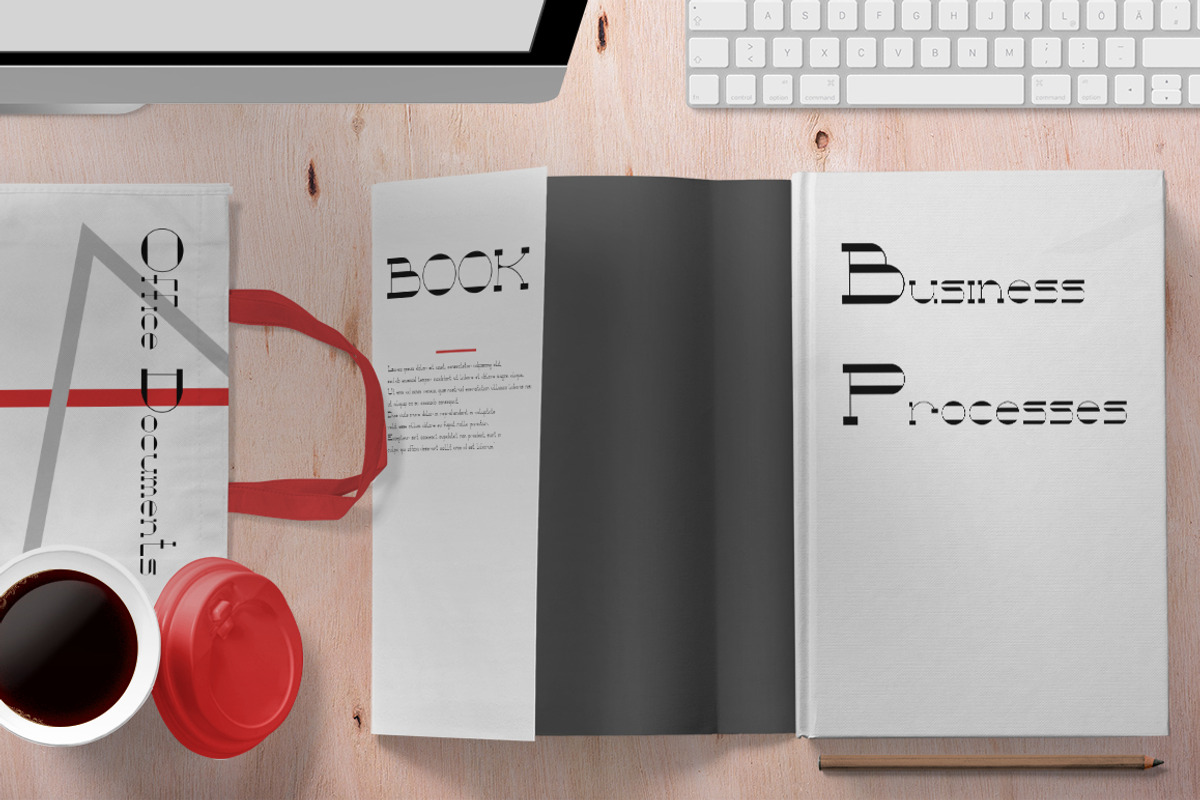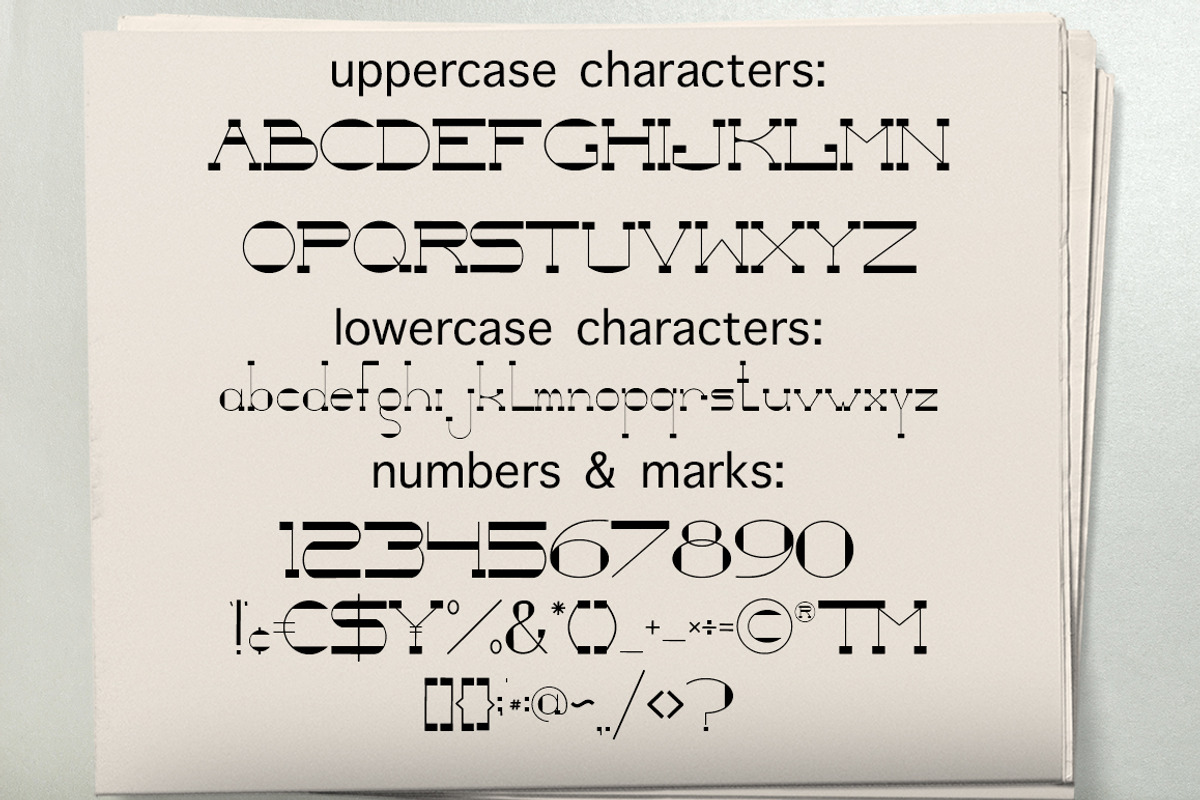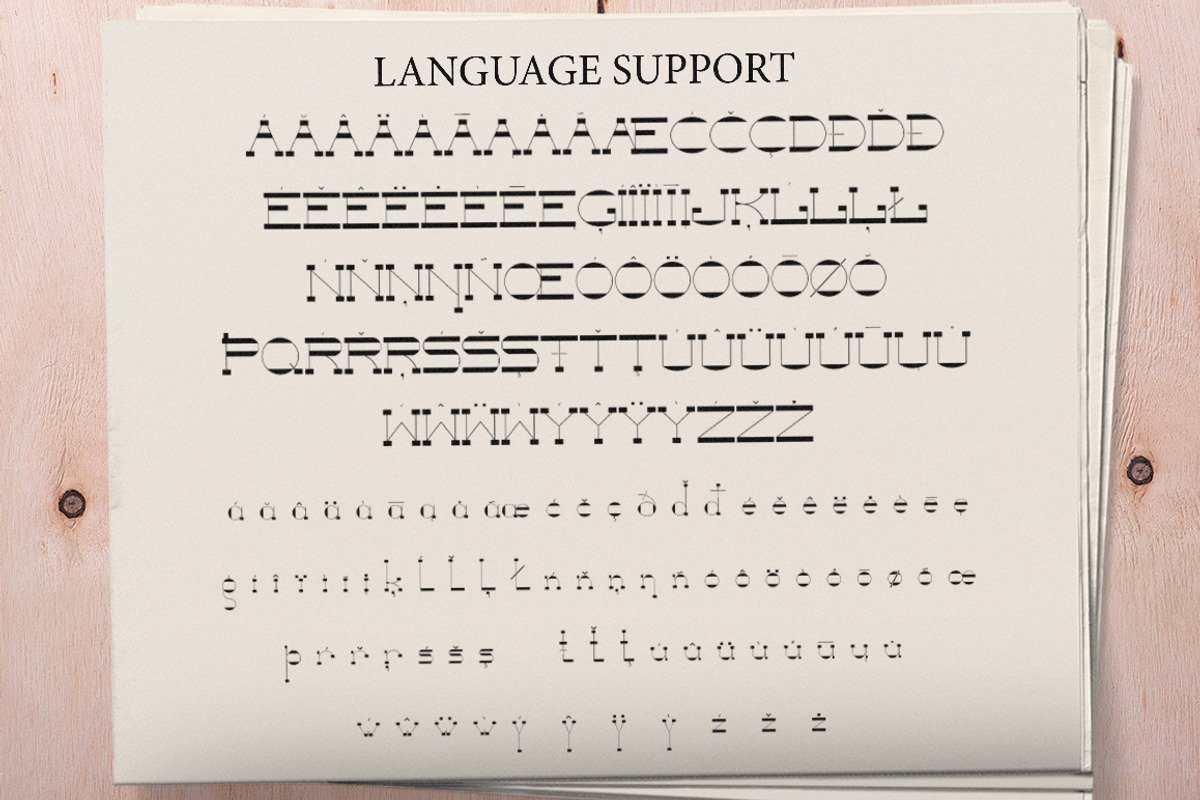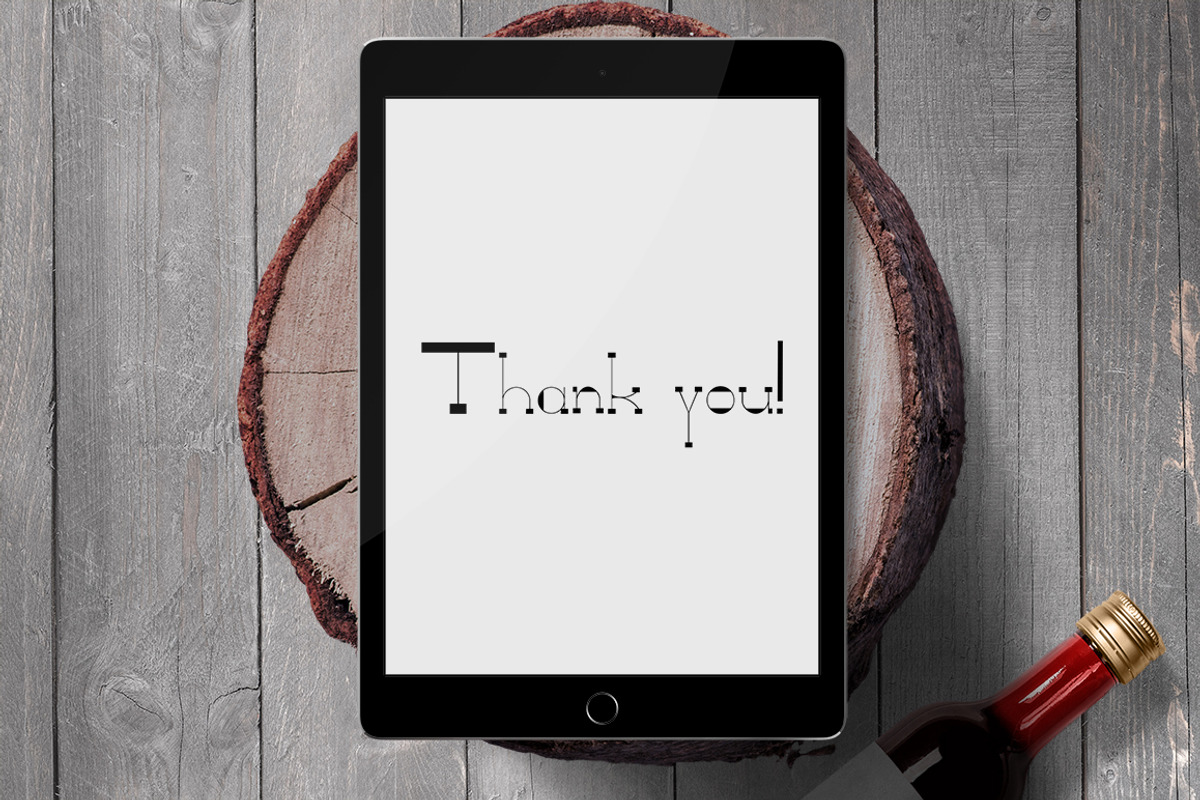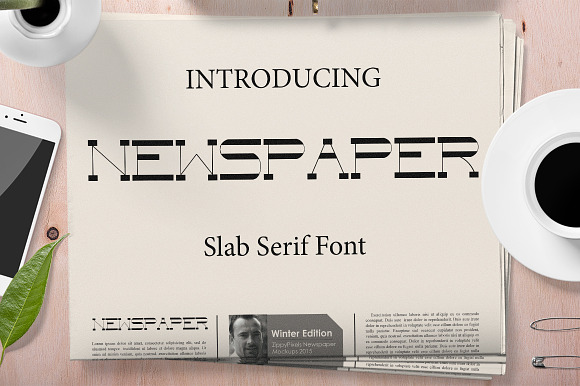
Newspaper Slab Serif font
serif fonts are simple and elegant look, you can use the projects you have.
can be used depending on the desire that use, as needed.
Newspaper Slab Serif font is a modern style Slab Serif, which was created to meet the needs of your next design project.
Newspaper Slab Serif font, Can used for various purposes. such as the title, logo, correspondence, letterhead, signage, labels, newsletters, posters, badges, t-shirt, etc.
- Comes with upper and lowercase characters, large set of punctuation glyphs, numerals.
- Newspaper has extensive language support - besides most of European languages
Newspaper Slab Serif font by Gennadi Digital Studio fits naturally into Branding, posters, packaging, typography.